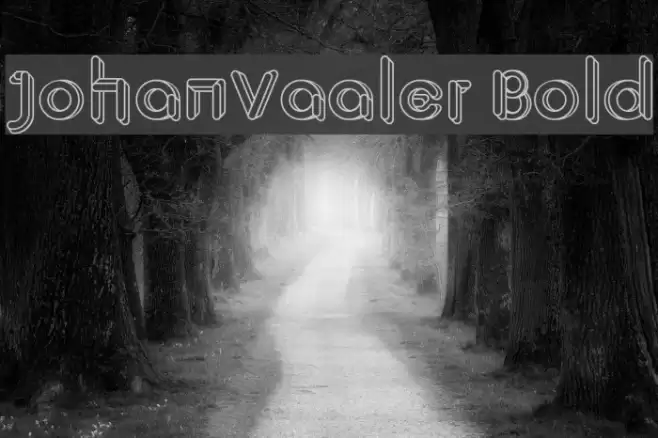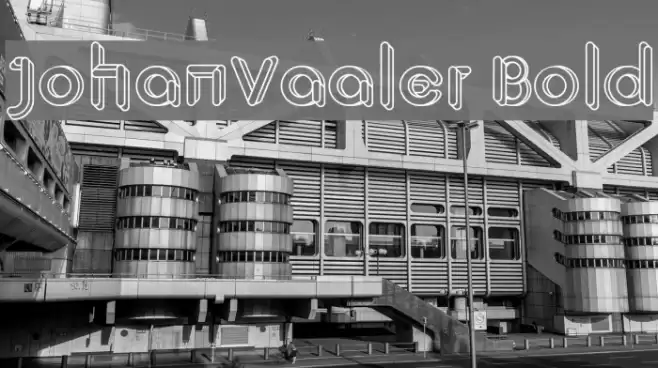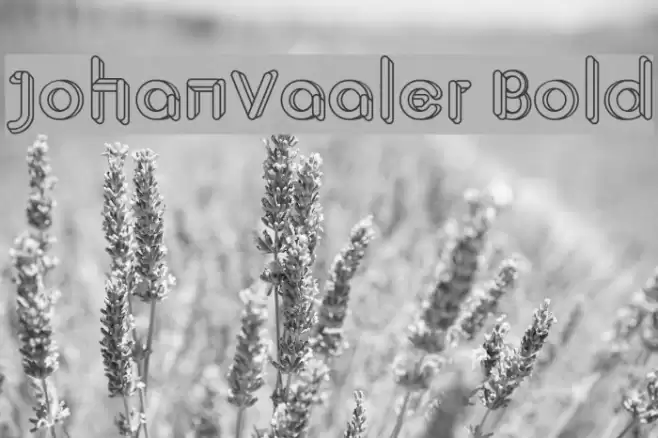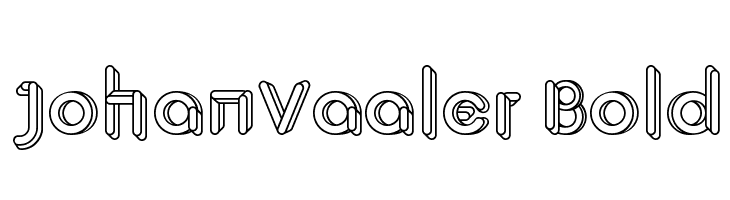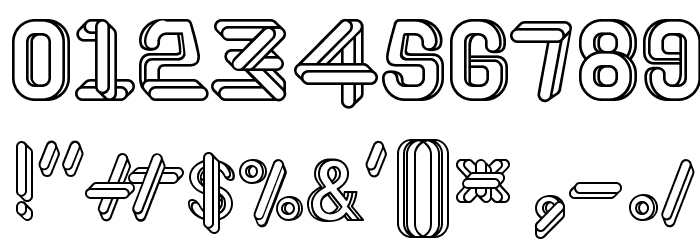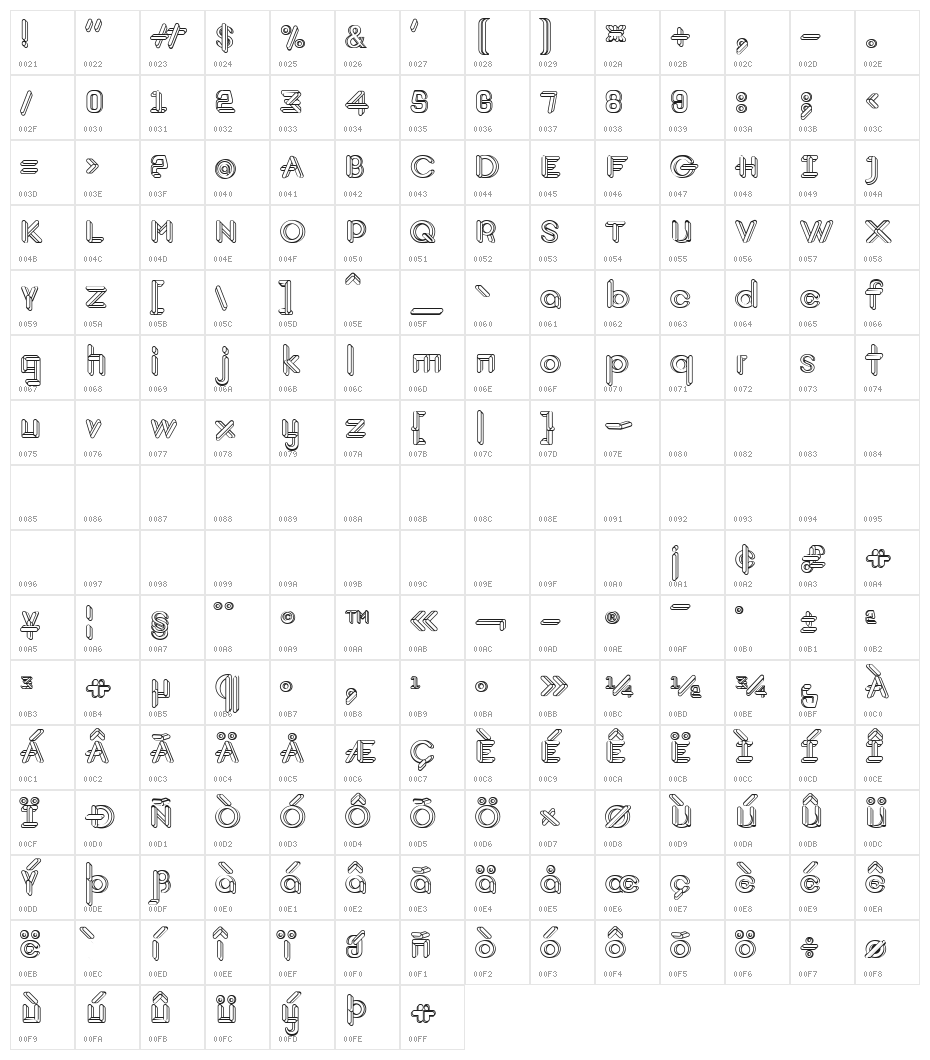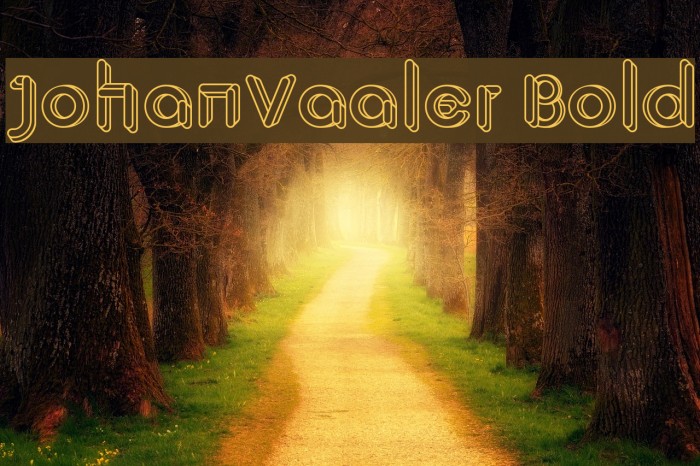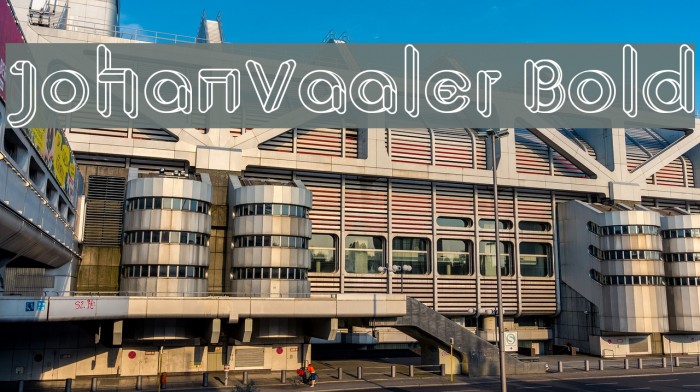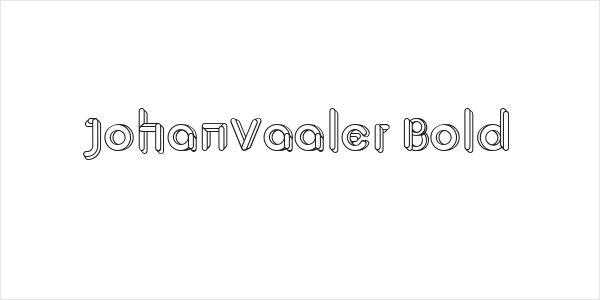
JohanVaaler Bold Font
JohanVaaler Bold Description
This font features a bold, geometric design with a unique double-line structure that gives it a modern and futuristic appearance. Each character is constructed with parallel lines, creating a sense of depth and dimension. The uppercase and lowercase letters maintain a consistent style, with rounded edges and a uniform thickness throughout. Numbers and special characters follow the same design principles, ensuring a cohesive look. The font's distinct style makes it stand out, making it ideal for creative and eye-catching designs.
A bold, geometric font with a double-line structure and modern appeal from Uncategorized fonts.
- Proposed Projects: Ideal for branding, posters, headlines, and any project requiring a modern and striking visual impact.